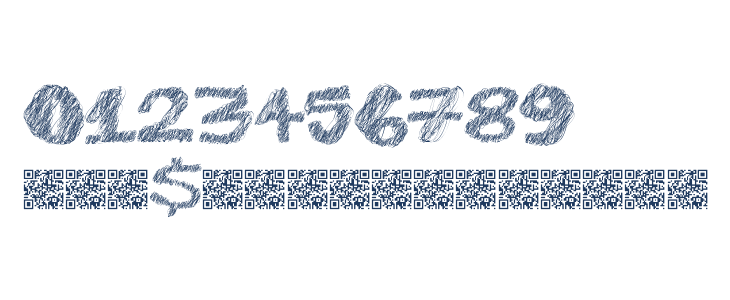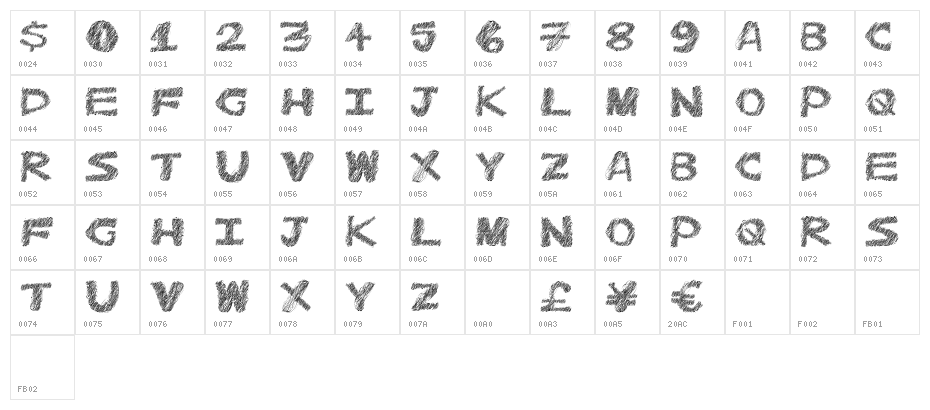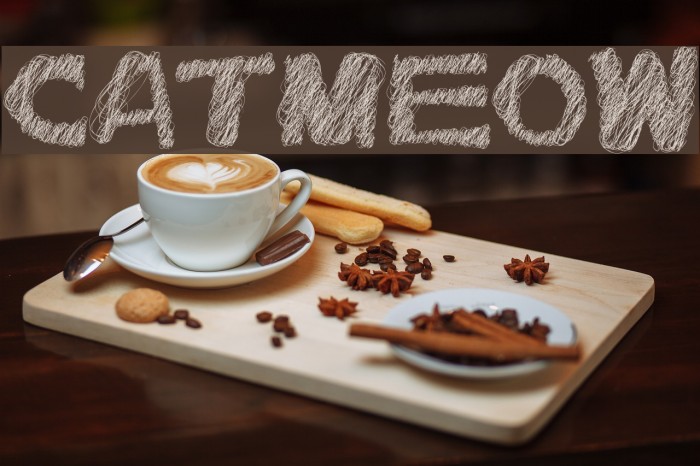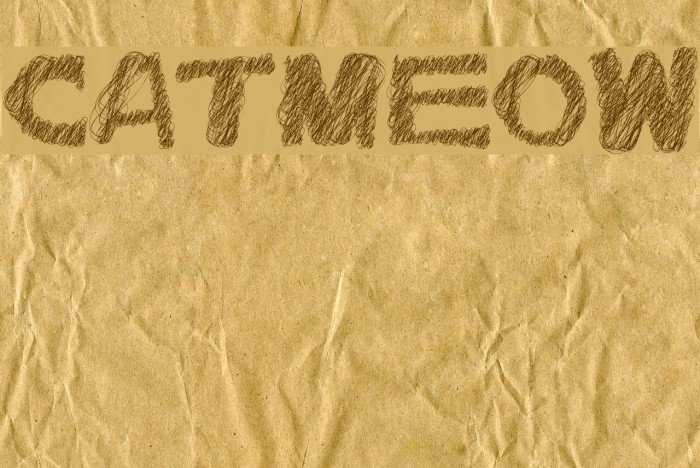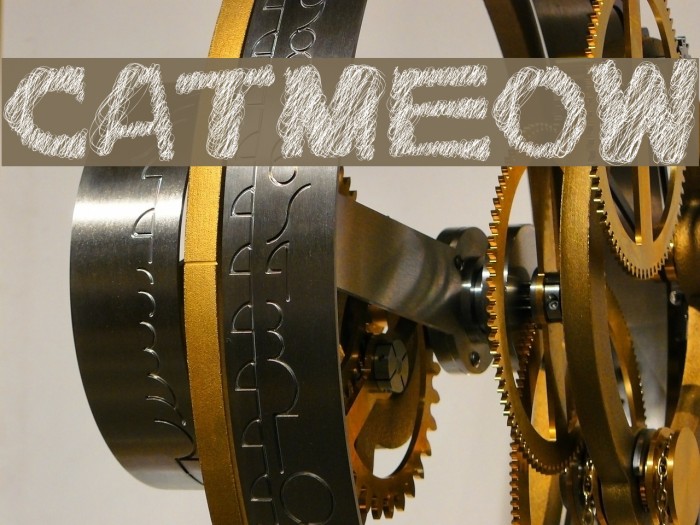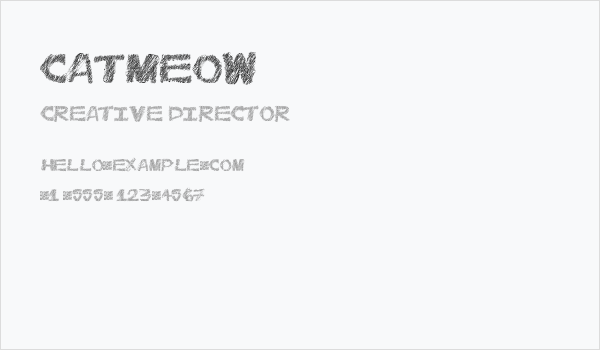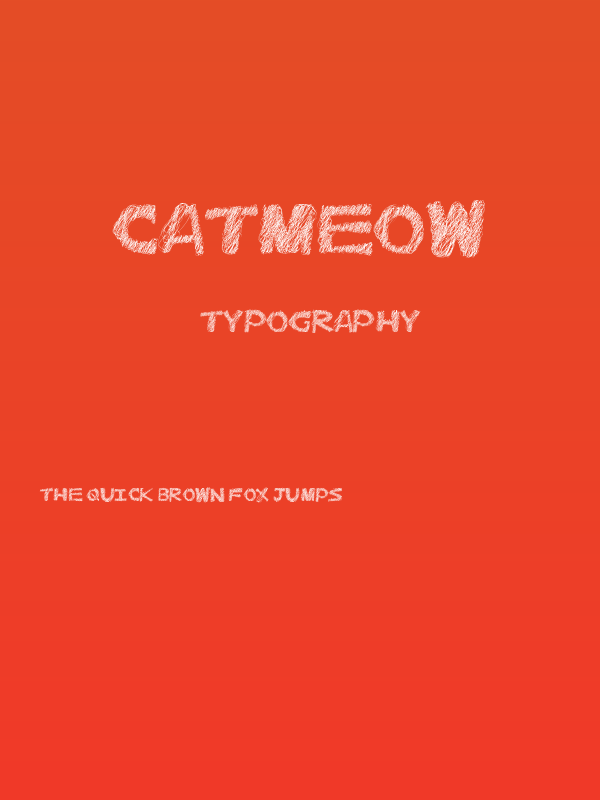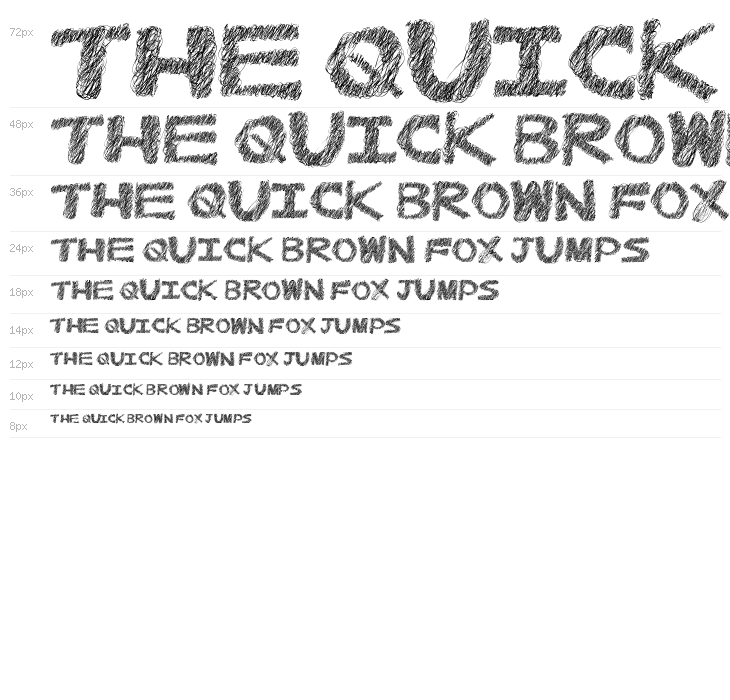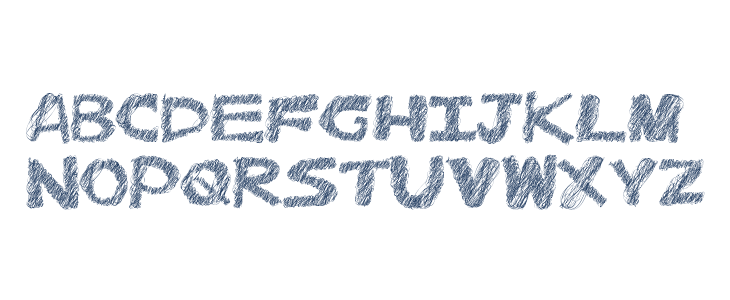
CatMeow Font
| Stile generale | Artistic, Playful |
| Caso d'uso | Headlines, Logos, Creative Projects |
| Progetti proposti | Ideal for children's book covers, creative posters, art-themed branding, and playful social media graphics. |